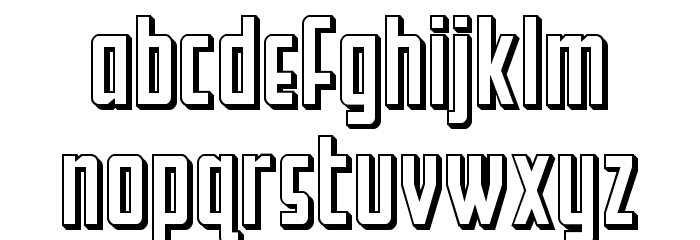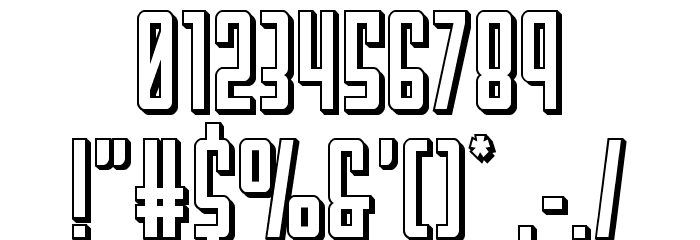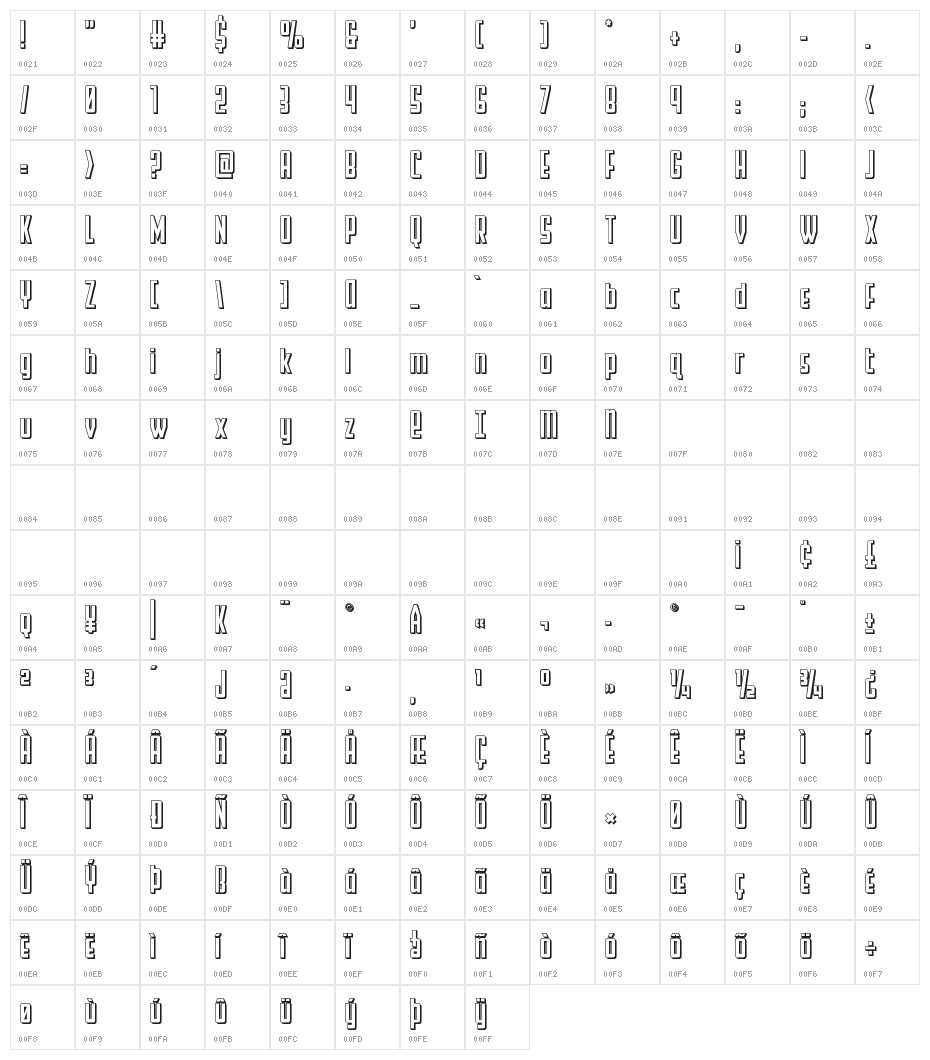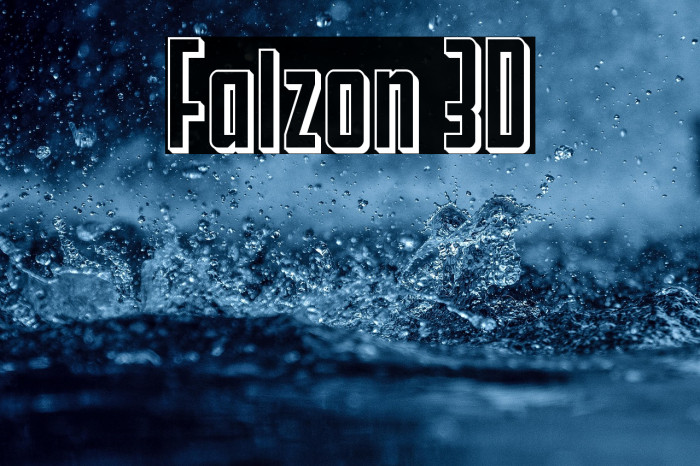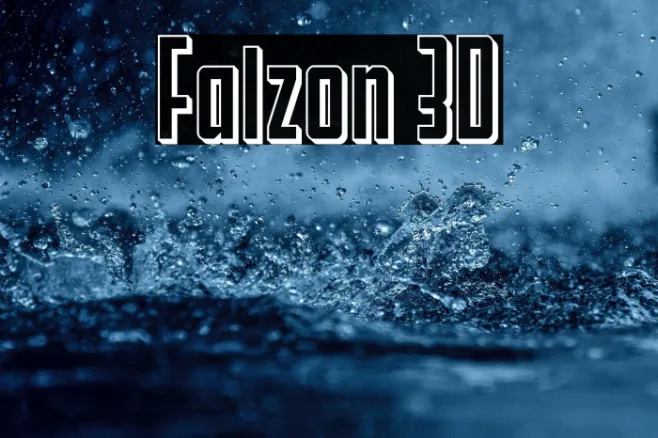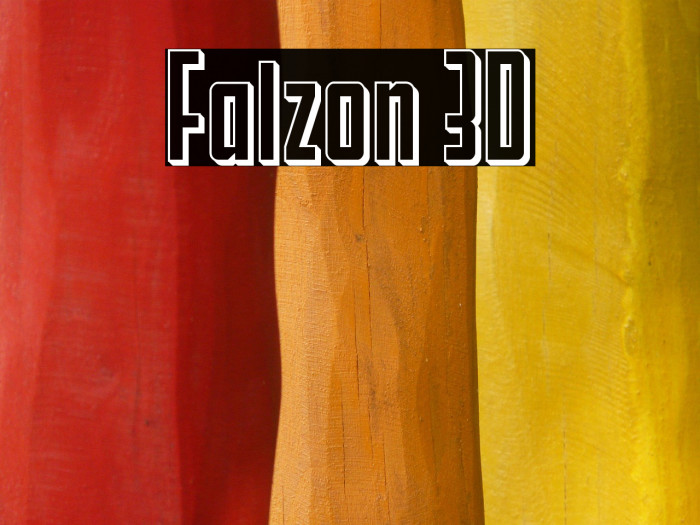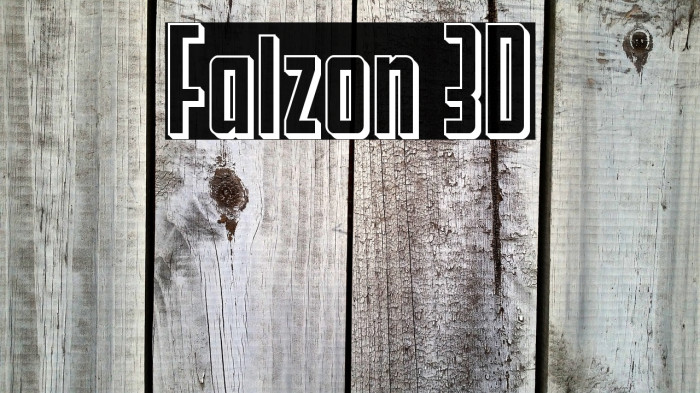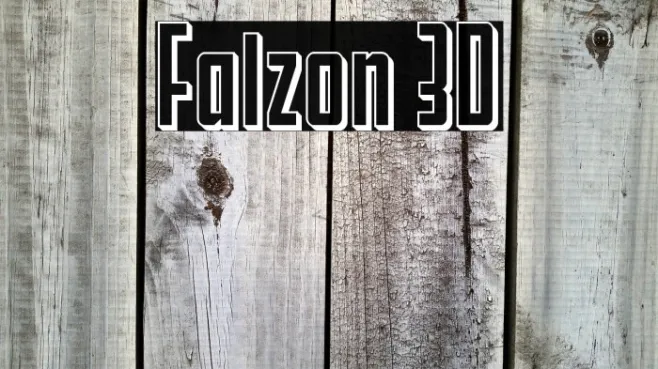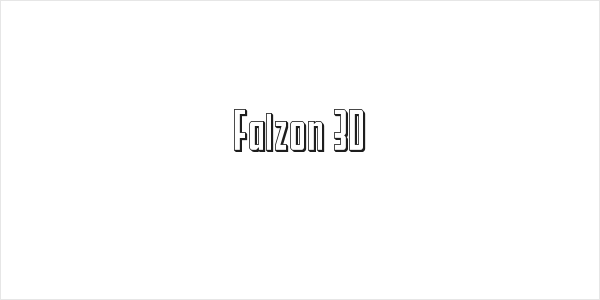
Falzon 3D Font
This font features a bold, three-dimensional appearance with a strong, geometric structure. Each character is outlined, creating a shadow effect that gives depth and a sense of solidity. The uppercase and lowercase letters maintain a consistent style, with sharp angles and clean lines. The numerals and special characters follow the same design principles, ensuring uniformity across all glyphs. This font is highly legible and makes a striking visual impact, suitable for attention-grabbing designs.
A bold, 3D geometric font with outlined characters and a shadow effect.